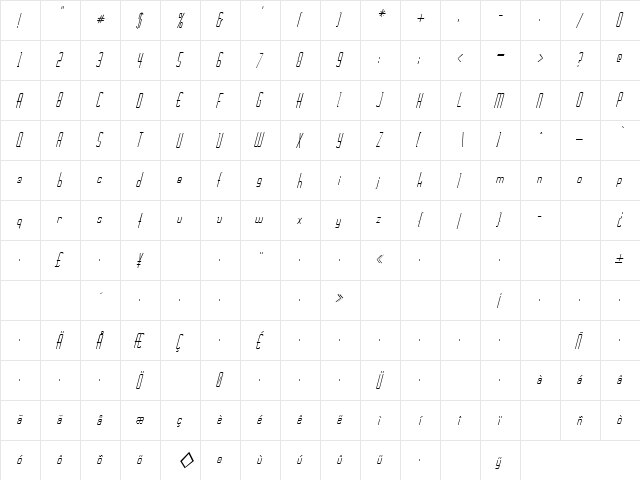
Joe 13 Italic Font Preview
Joe 13 Italic
Design Context for Joe 13 Typeface
Joe 13 is a composed and adaptable typeface that performs quietly and consistently across a wide range of design contexts. Its italic angle brings a sense of urgency and motion to the letterforms.